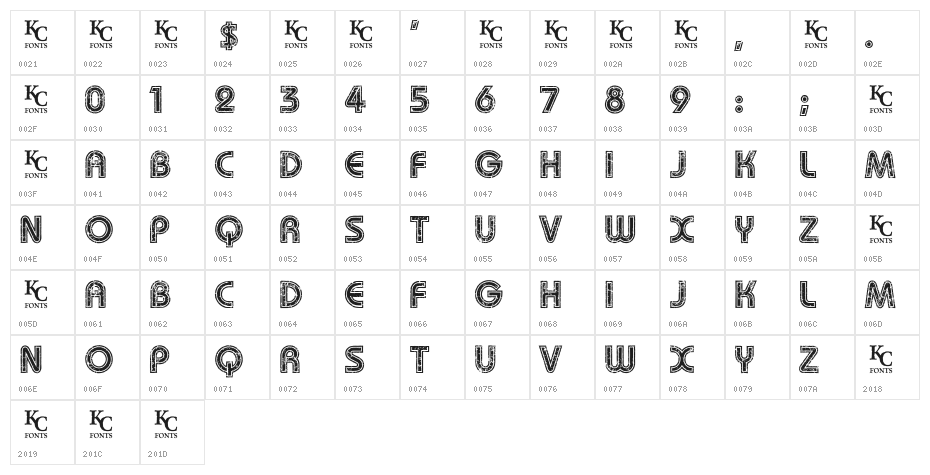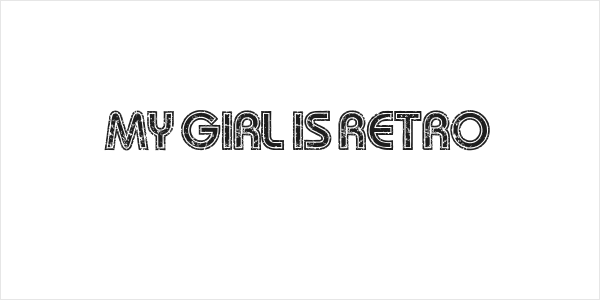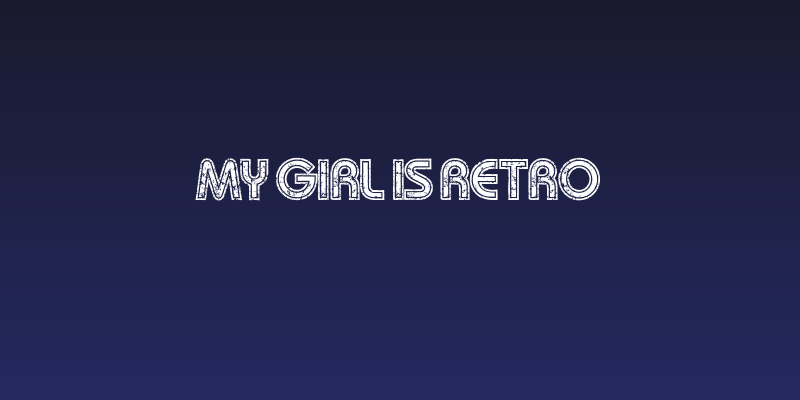
My Girl Is Retro Font
My Girl Is Retro Description
This font features a bold, retro-inspired design with a distressed texture that gives it a vintage, worn-out look. The characters are outlined with a thick stroke, enhancing their boldness and making them stand out. The uppercase and lowercase letters maintain a consistent style, with rounded edges and a geometric structure. The numbers and special characters follow the same aesthetic, ensuring uniformity across all glyphs. This font's unique style is perfect for projects that aim to evoke a sense of nostalgia or a retro vibe.
| Proposed Projects | Ideal for vintage posters, retro-themed branding, album covers, and nostalgic advertising campaigns. |